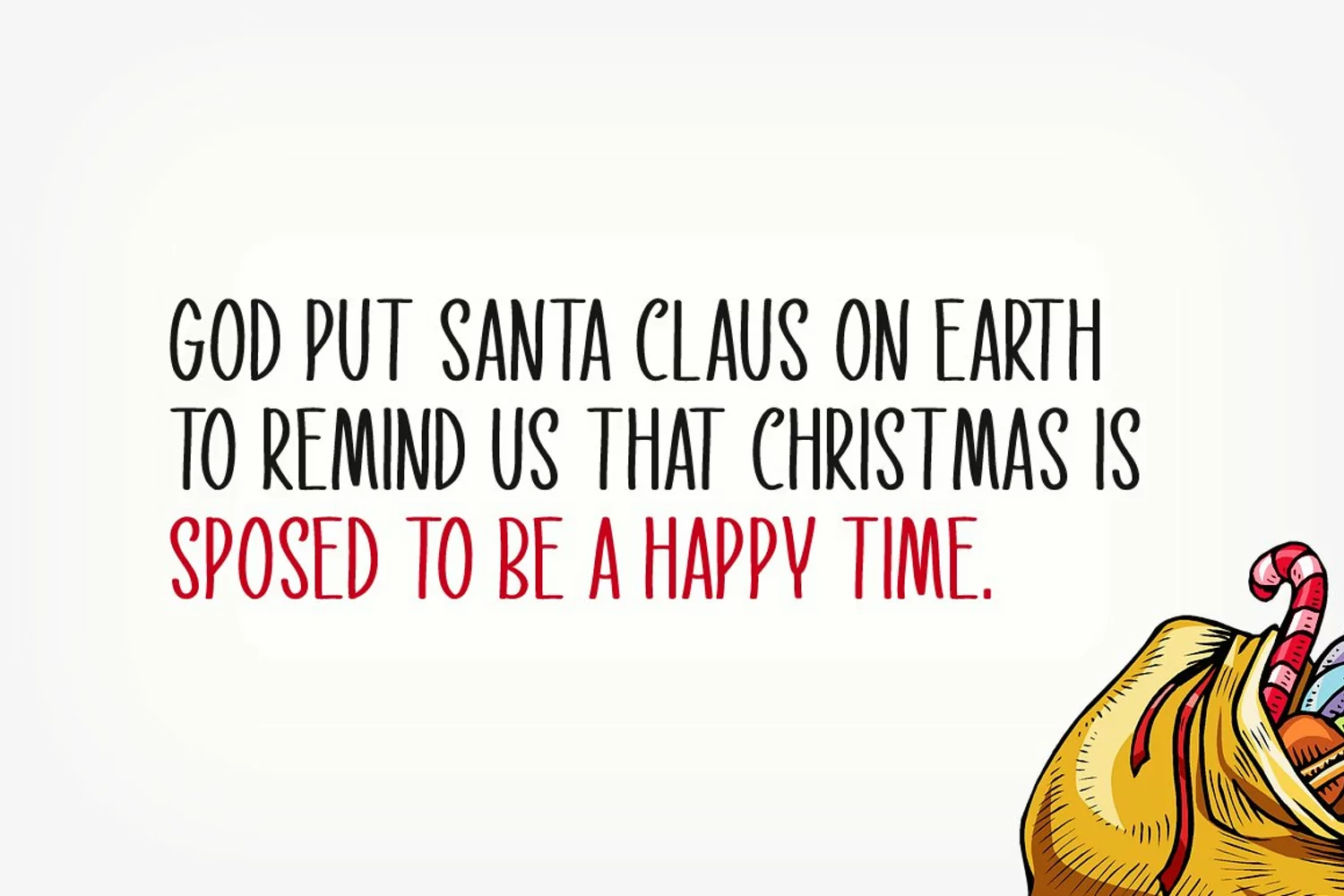
Introducing Our Santa!
Our Santa is a brand new handwritten font. Our Santa is perfectly suited for stationery, logos, t-shirt, paper, print design, website header, photo frame, flyer, music cover, poster, image slider, and much more.